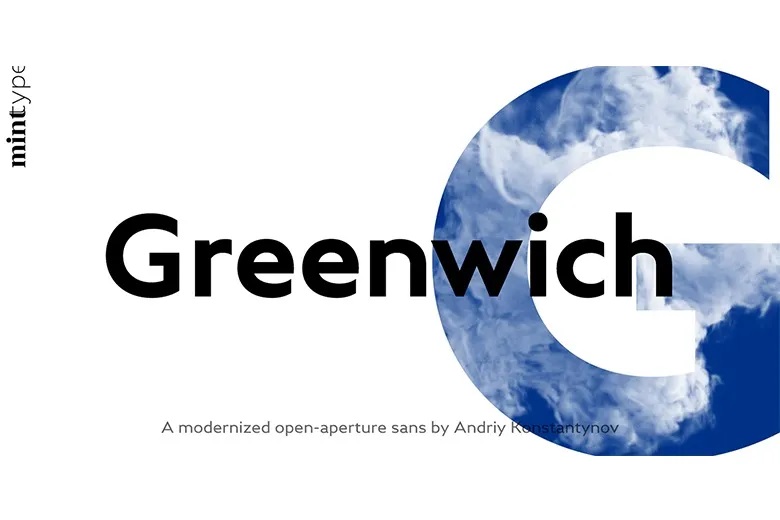
Greenwich Font
Greenwich is a contemporary looking open-opening, humanized sans-serif, based on the typography of English designers of the 1910s-1920s. It has 9 weights with matching mixed italics. Greenwich with more than 950 glyphs provides huge language support, Cyrillic, different OpenType features and very wide possibilities of various alternative glyphs to choose. It works well in lengthy paragraphs however, it is diverse enough to use in headlines and branded products.
Greenwich Sans Serif Font